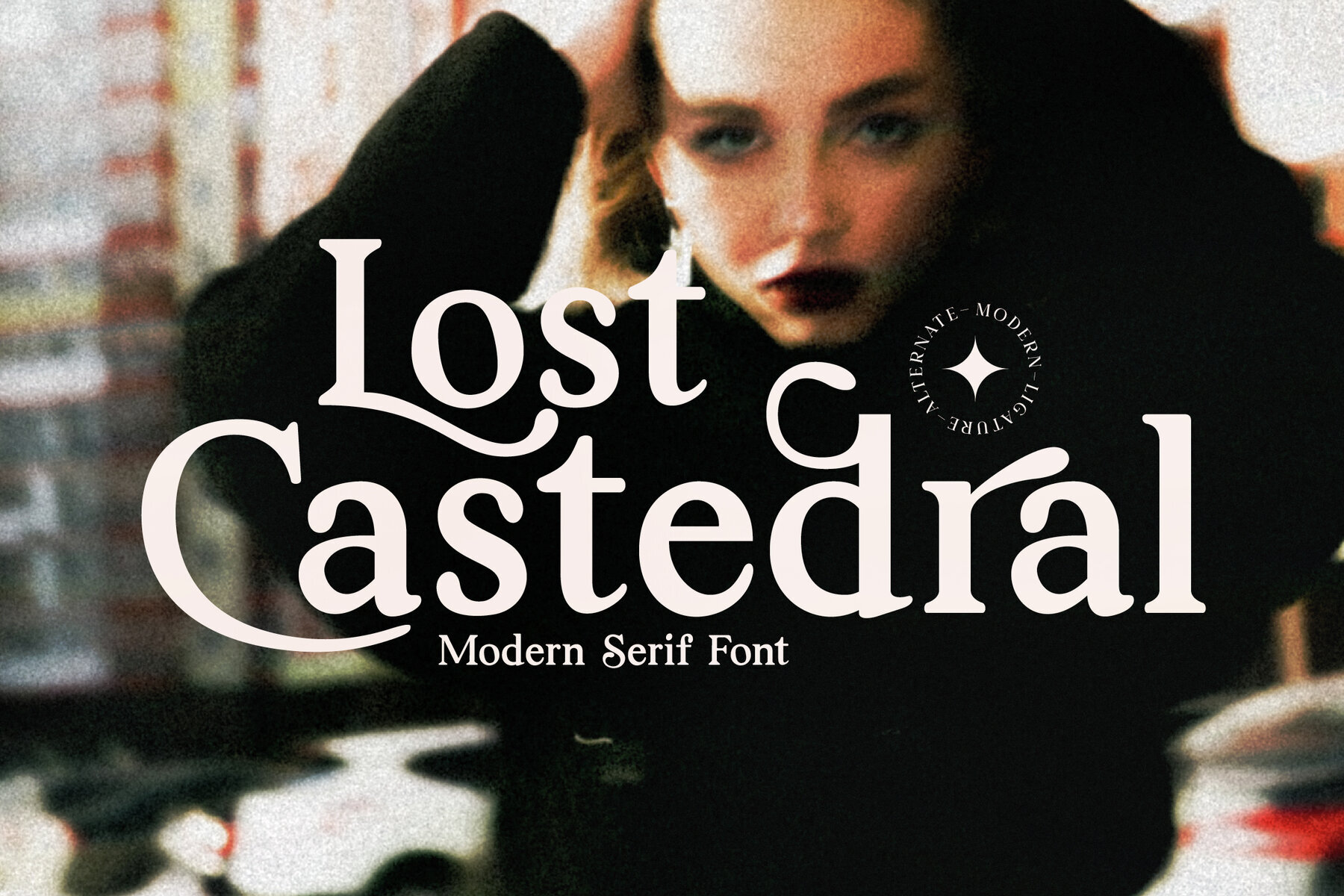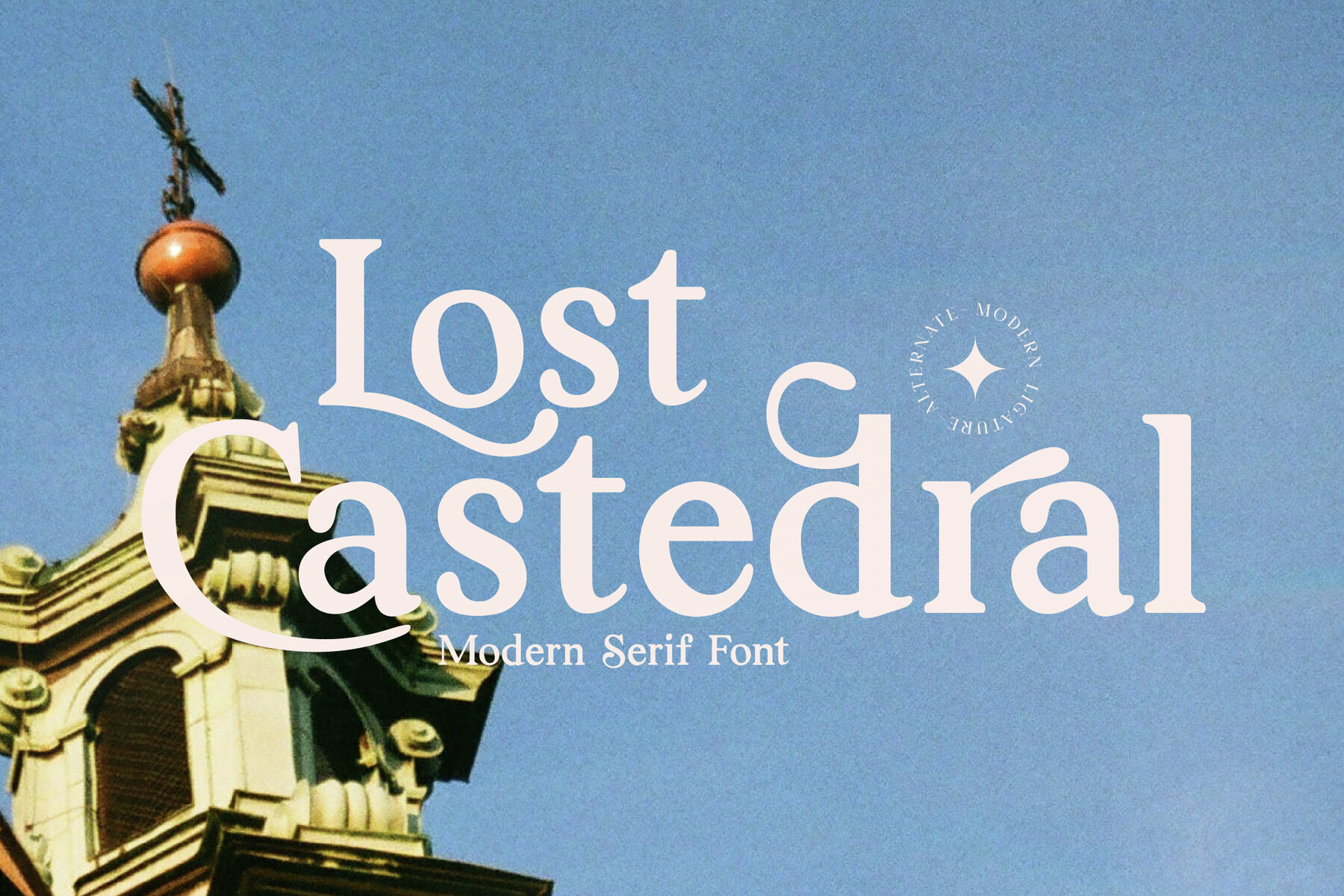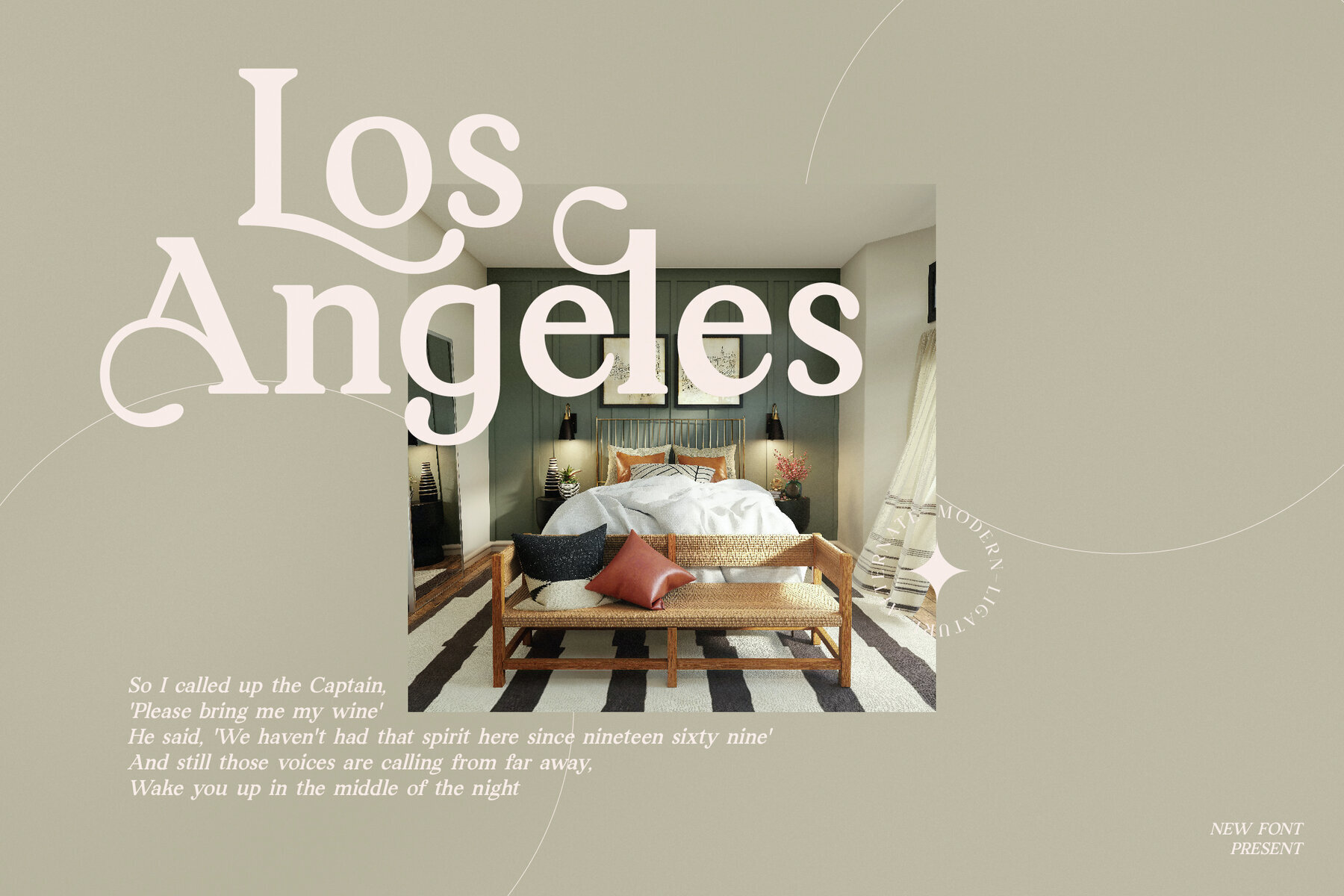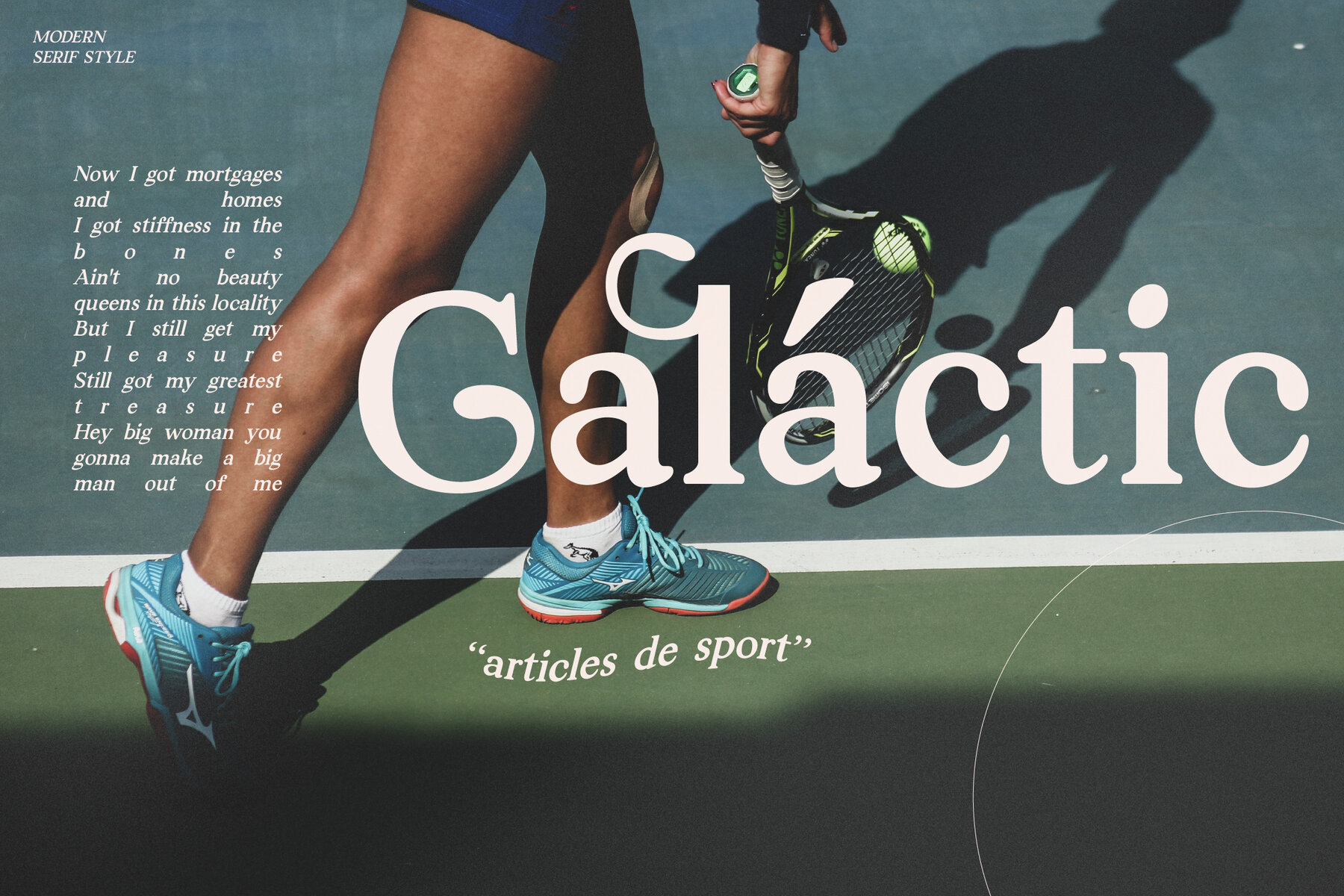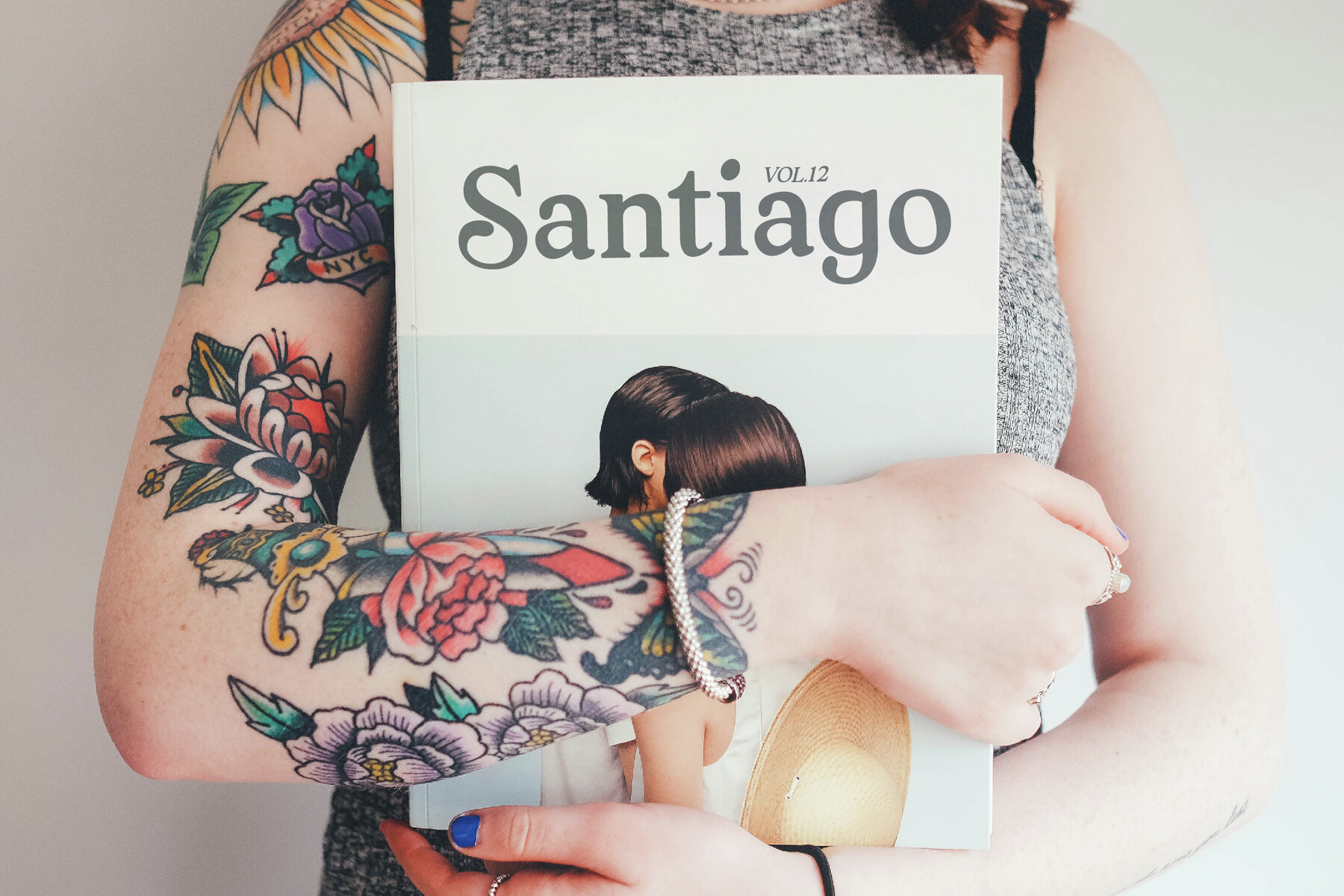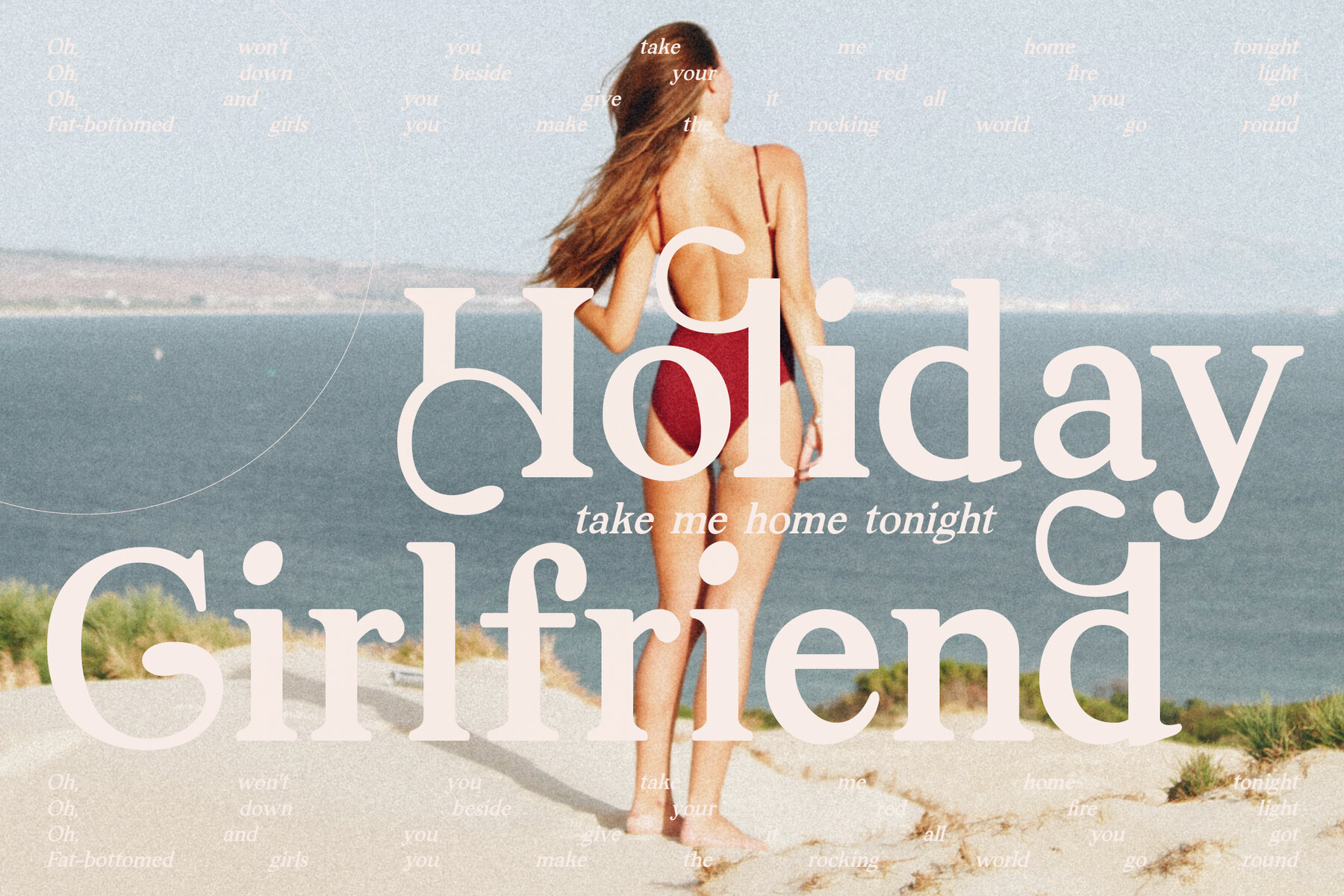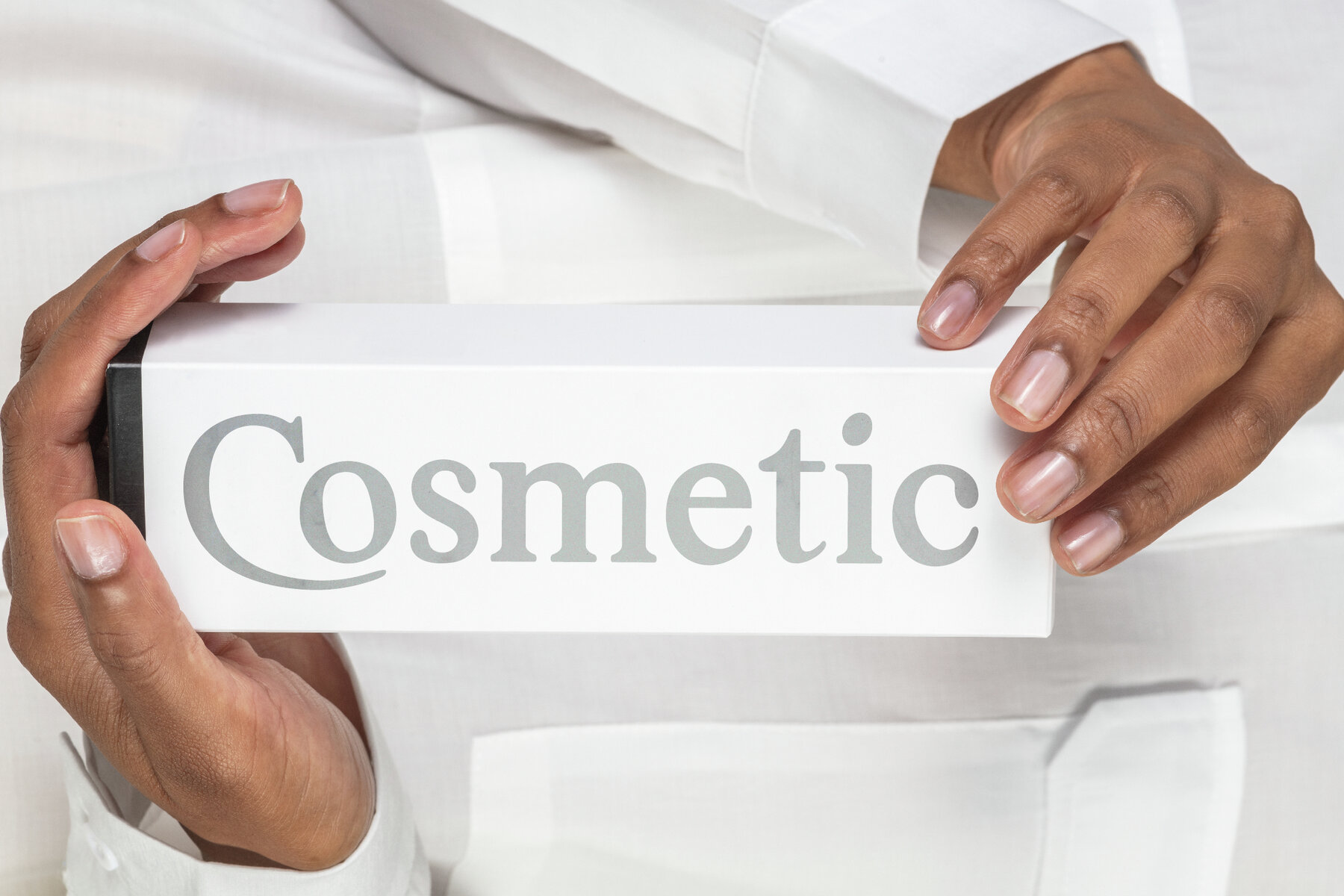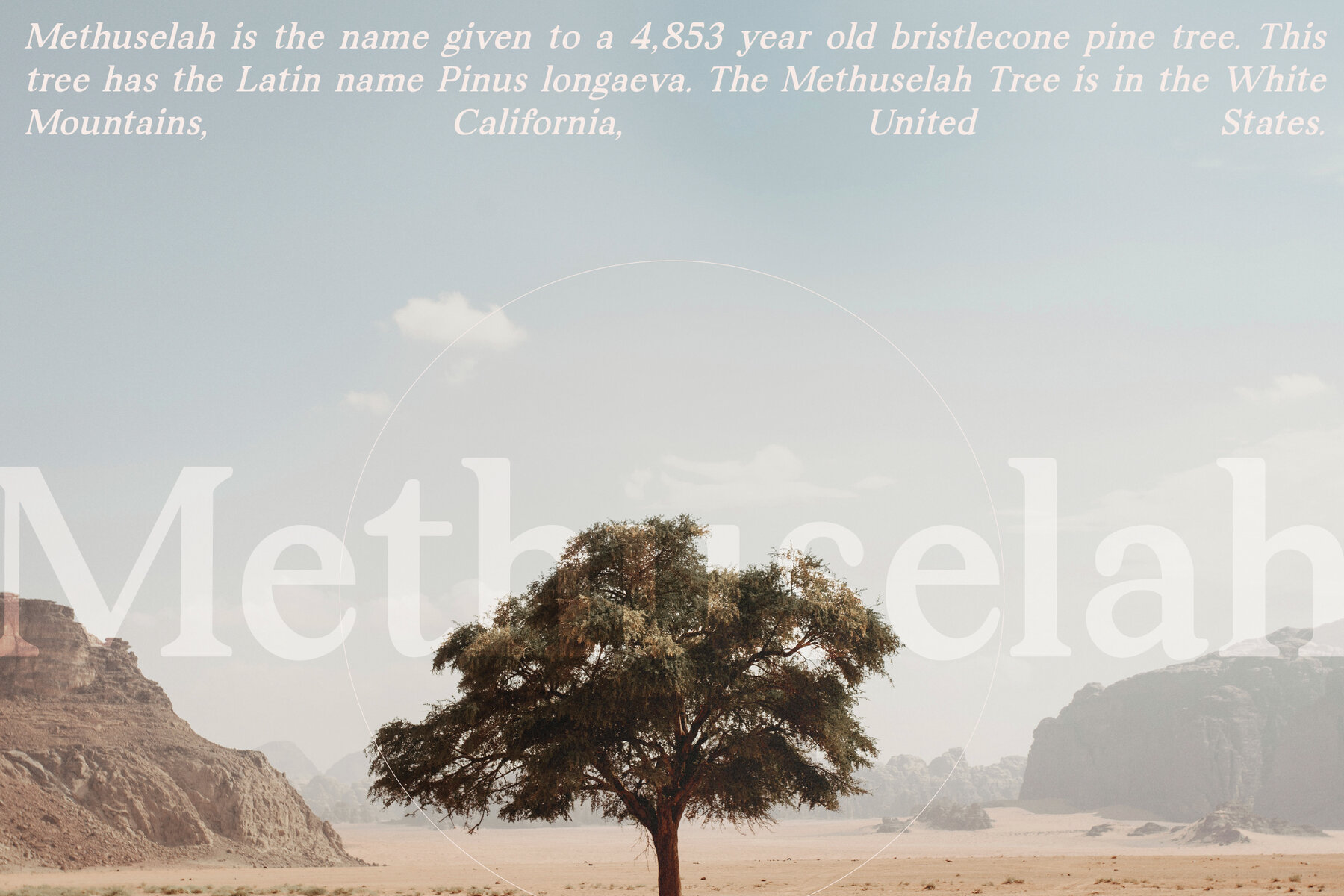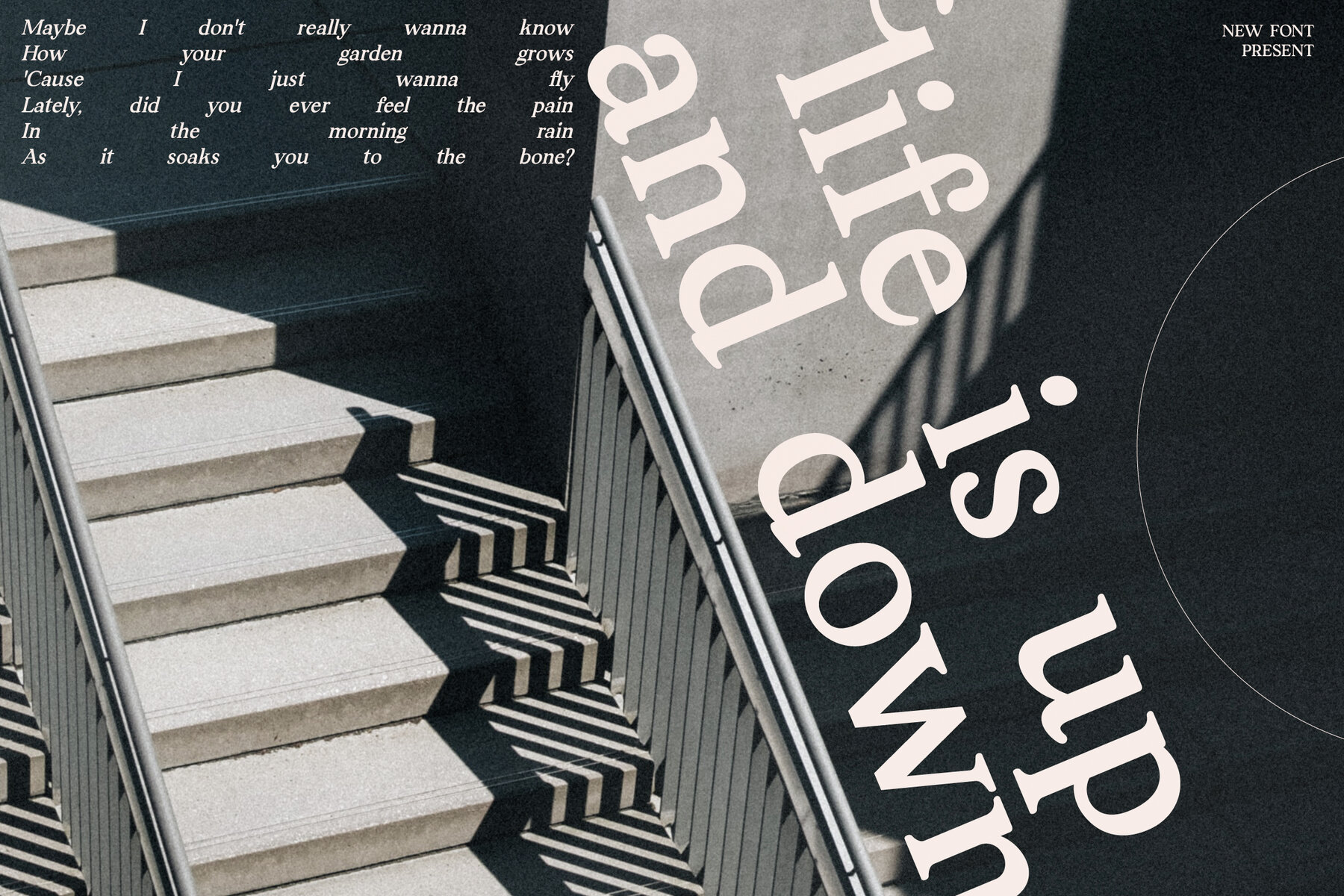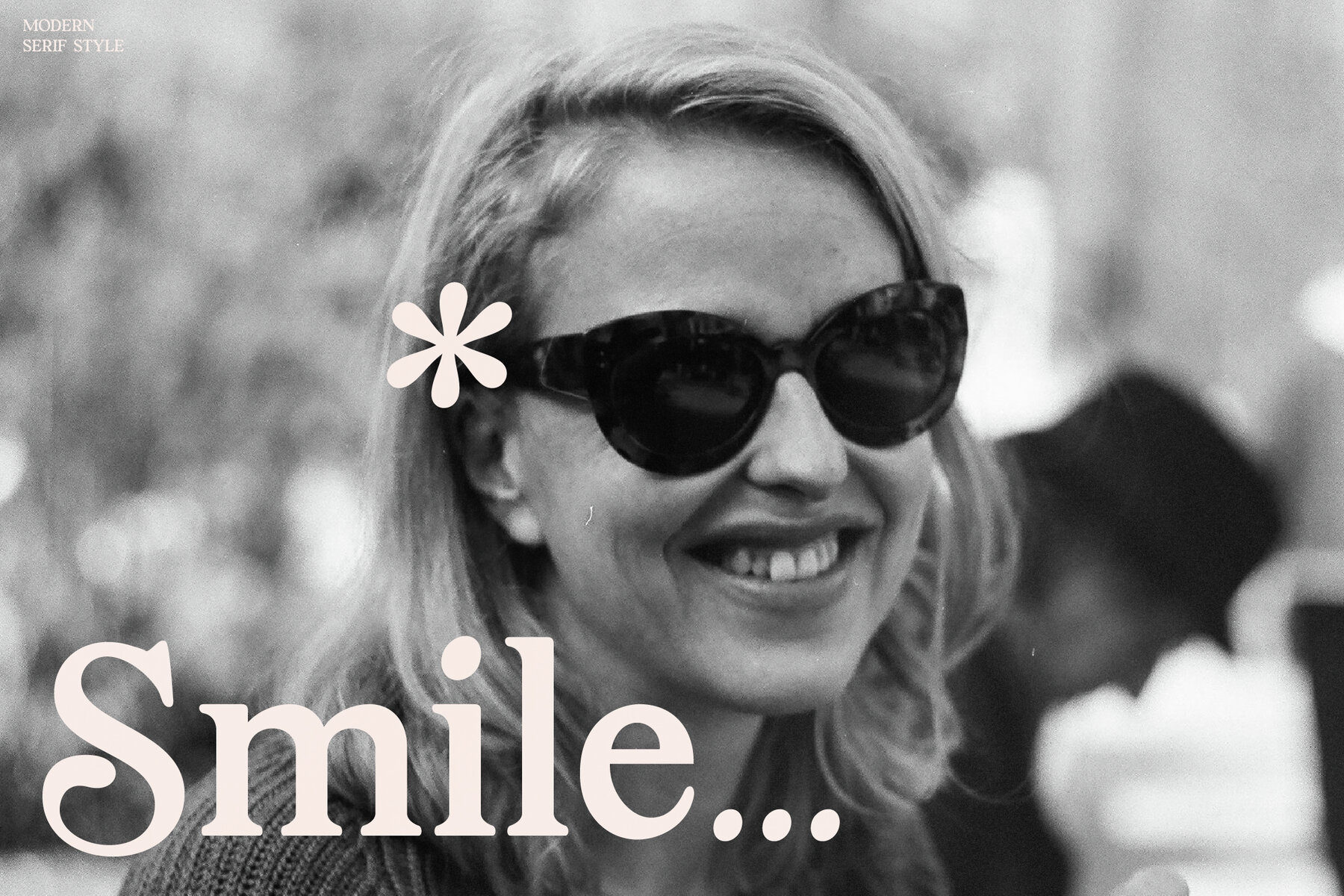
Lost Castedral Font
Lost Castedral is a serif typeface that seamlessly blends modern elegance with classic charm. Designed for versatility, it brings a distinctive style to any project. Its sophisticated appearance is ideal for creating luxurious logos, compelling book or movie titles, and high-end fashion branding. This typeface also adds a refined touch to magazine layouts, apparel design, and striking quotes.